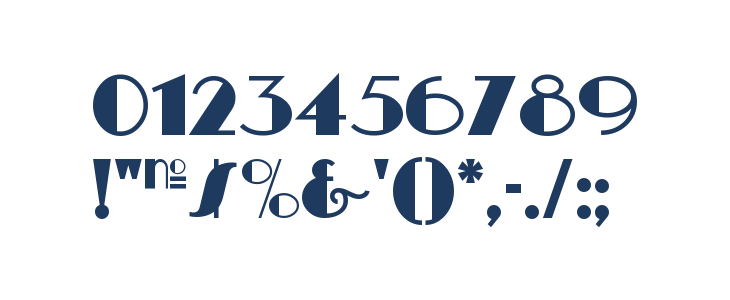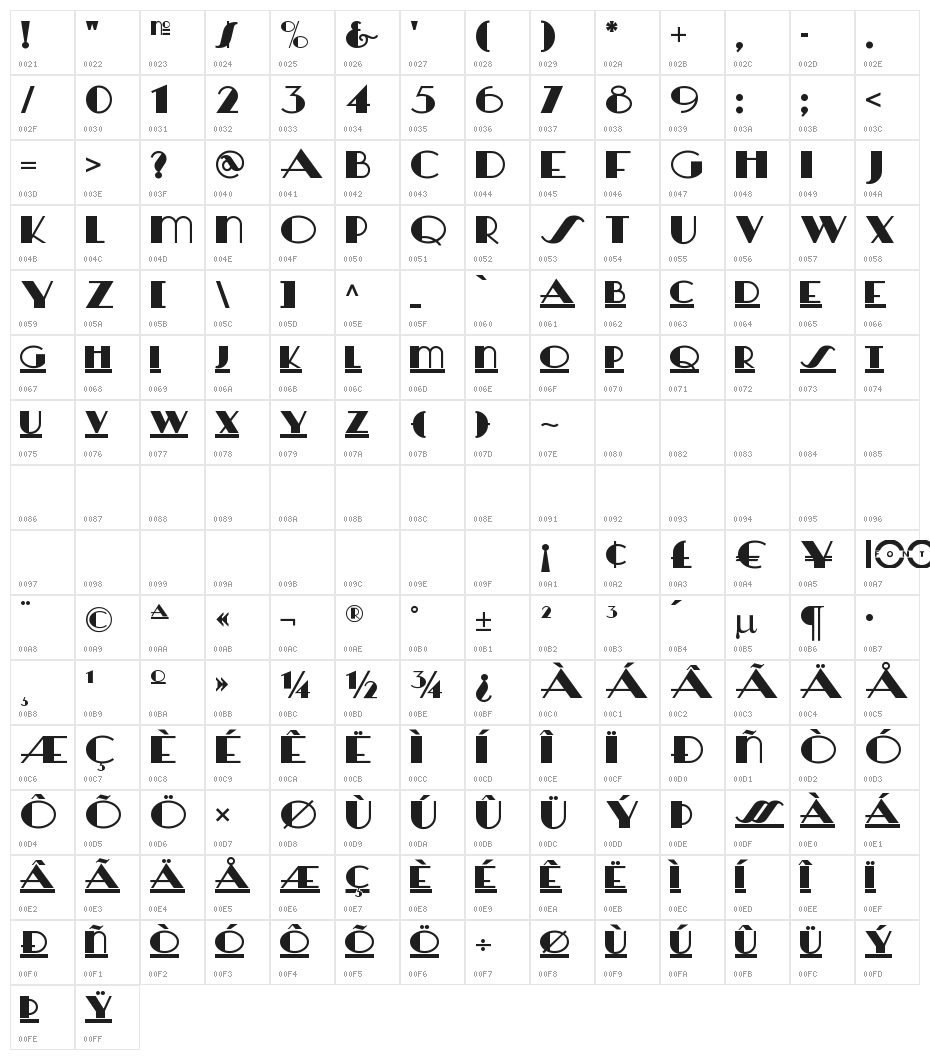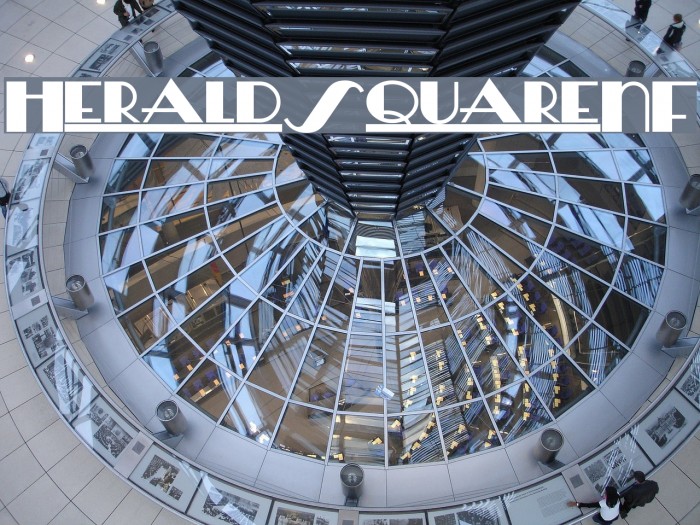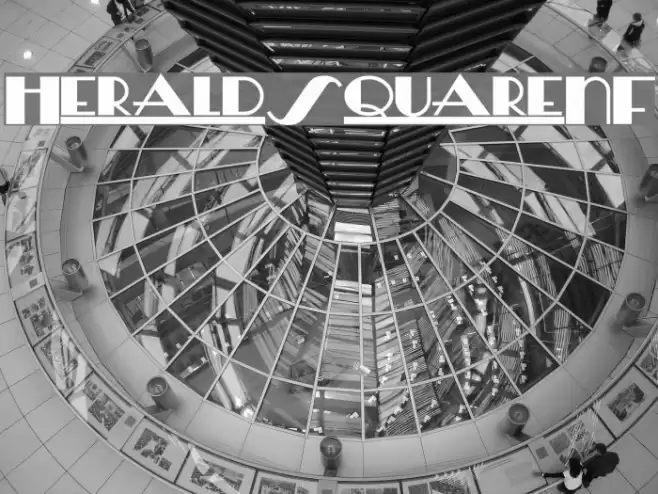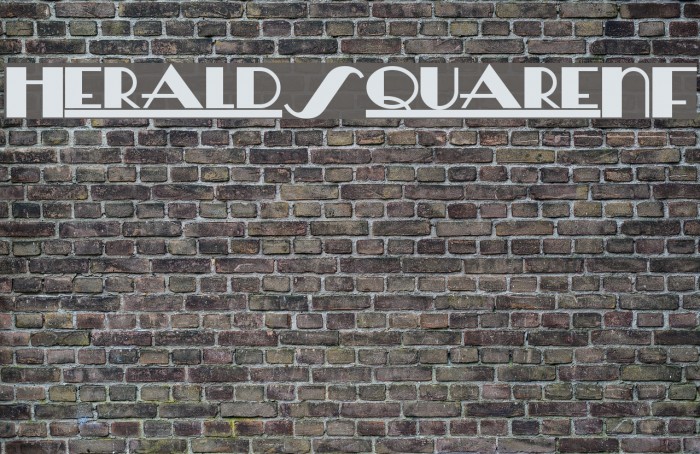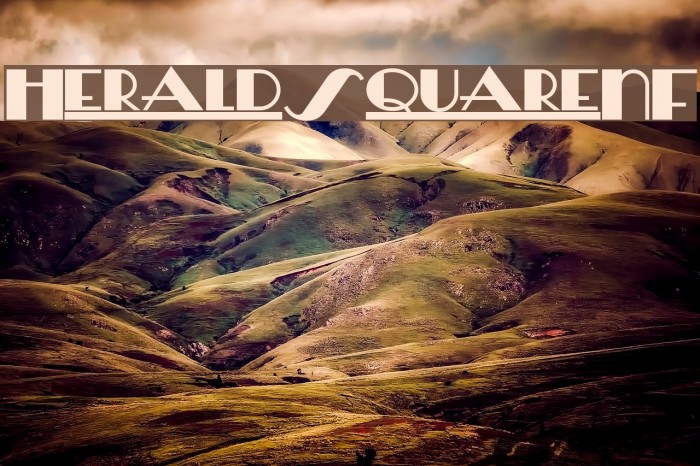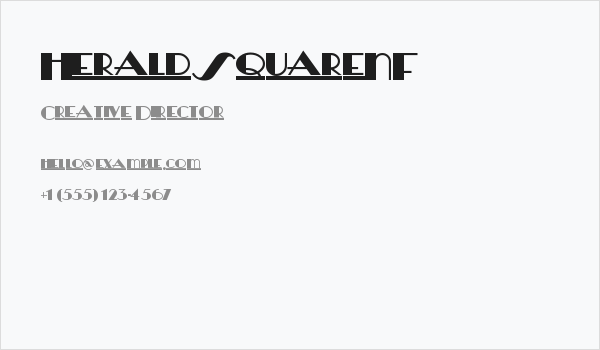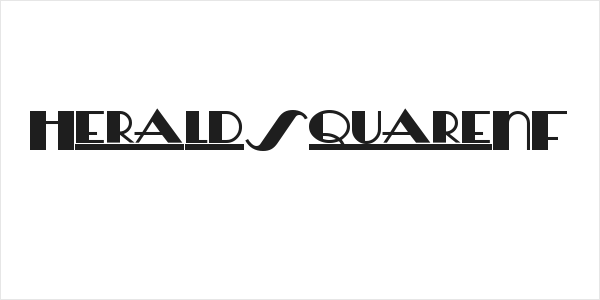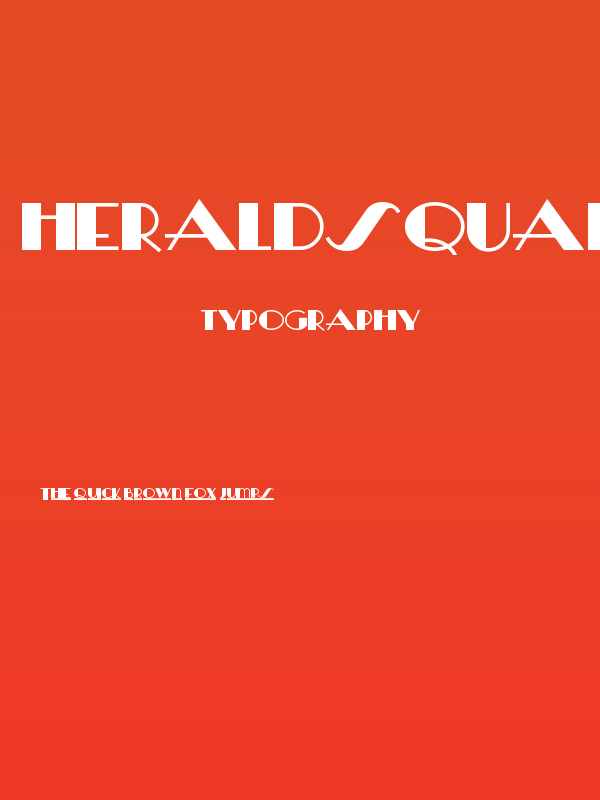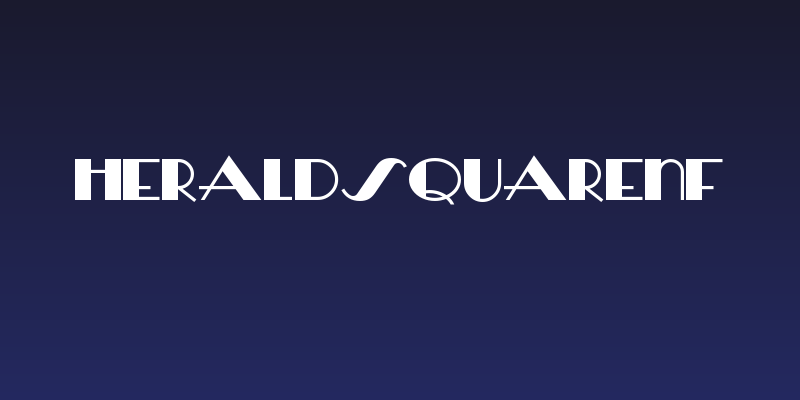
HeraldSquareNF Font
✎ Art Deco
HeraldSquareNF Description
This font exhibits a bold and striking geometric style, characterized by its strong, angular lines and distinct Art Deco influence. The uppercase letters are particularly notable for their dramatic contrast between thick and thin strokes, creating a sense of elegance and sophistication. The lowercase letters maintain a similar aesthetic, with some unique variations that add a touch of playfulness. The numerals are equally bold, with a consistent weight that complements the overall design. Special characters are creatively designed, maintaining the geometric theme while ensuring readability.
| Overall Style | Art Deco, Modern |